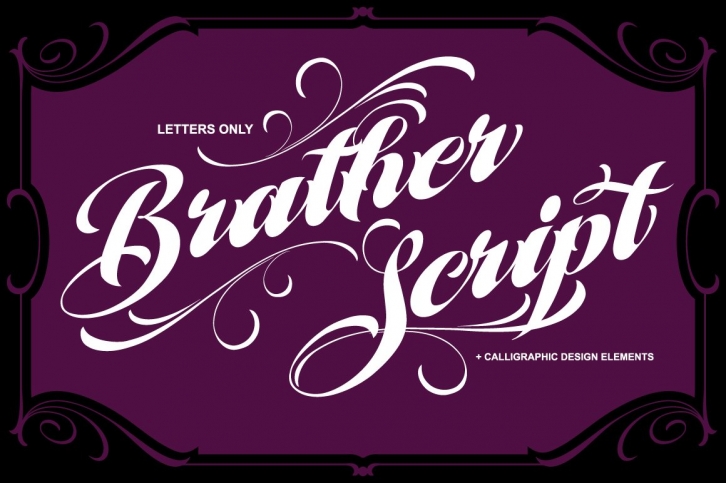
Brather Script is a great font that was designed by misterchek. Imagine the amount of combinations you can create using this font! The archive is 18.65 MB and it was released on April 19, 2019. Brather Script looks beautiful on wedding invitations, greeting cards, logos, posters, labels, t-shirt designs, logos, business cards and is perfect for use in ink or watercolor works, fashion, magazines, packaging and food menus, children's books and more!